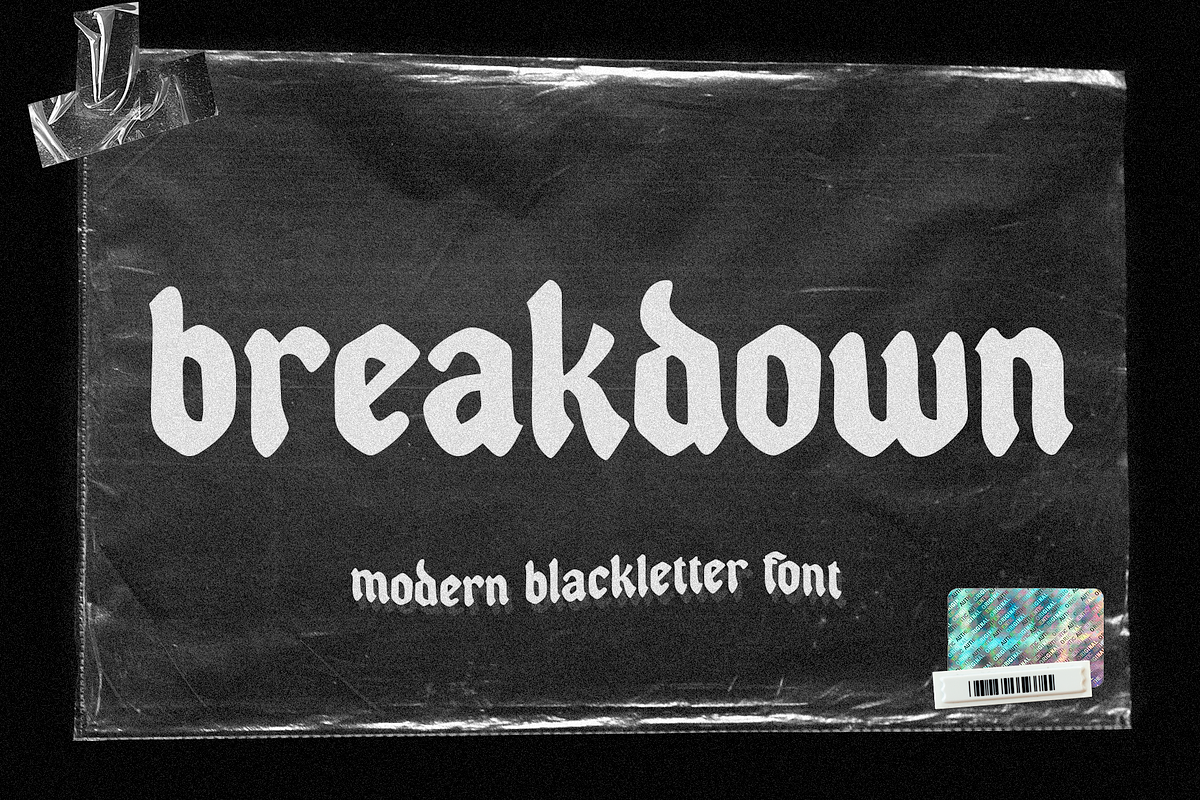
Breakdown | Modern Blackletter Font Free Download is a bold and contemporary take on the traditional blackletter style. With sharp, edgy lines and dramatic contrasts, this modern blackletter typeface combines historical elegance with a modern, rebellious twist. Perfect for edgy branding, posters, music album covers, tattoos, and high-impact headlines, this font brings power and attitude to any design.
Breakdown | Modern Blackletter Font Free Download captures the strength and intensity of classic blackletter fonts while offering a more refined, contemporary appearance that suits both digital and print design projects.